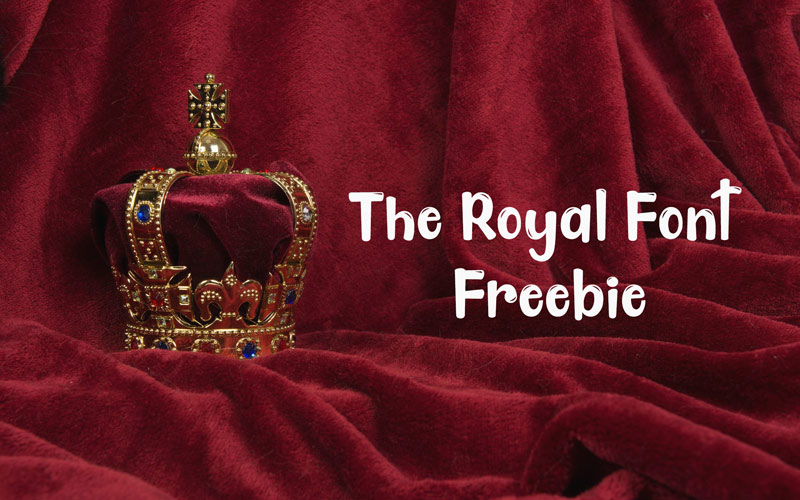
The Royal Font Freebie
Introducing The Royal Font Freebie: Unlock the Majestic Power of Regal Typography!
Are you ready to infuse your designs with an air of sophistication and grandeur? Look no further than The Royal Font Freebie—a stunning collection of fonts inspired by the opulence and timeless beauty of royal aesthetics. And the best part? It’s absolutely free!
With The Royal Font Freebie, you can transform your projects into regal masterpieces. From elegant serifs that command attention to decorative scripts that dance across the page, each font exudes a sense of prestige and nobility. Whether you’re creating wedding invitations, designing a luxury brand logo, or crafting refined branding materials, these majestic typefaces will elevate your work to new heights.